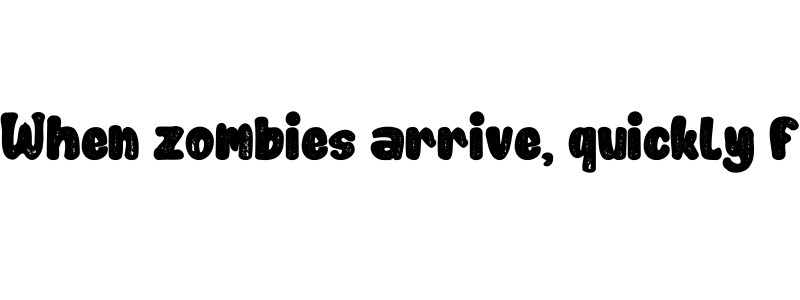
Look Ball - FREE Font
Look Ball
Look Ball is a fun, jolly, and incredibly charming display font. It embodies playfulness and authenticity and is the perfect choice for any children’s activity or school project.